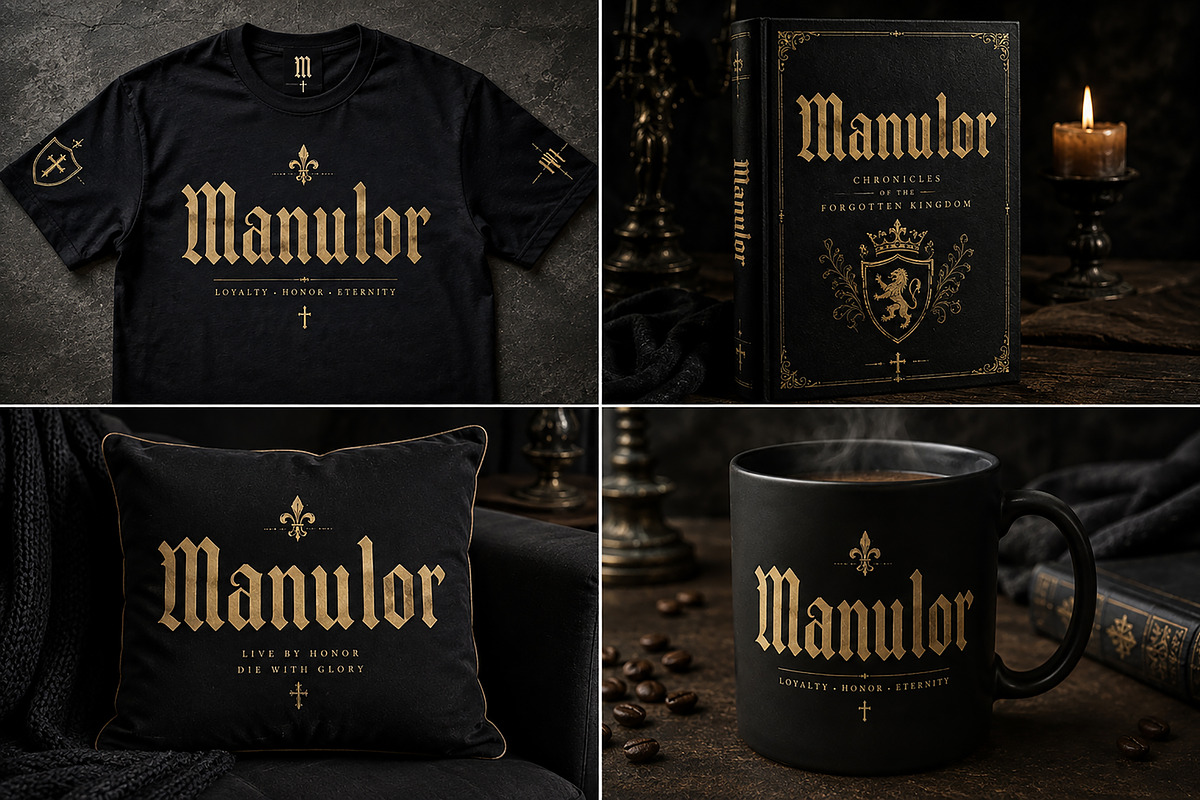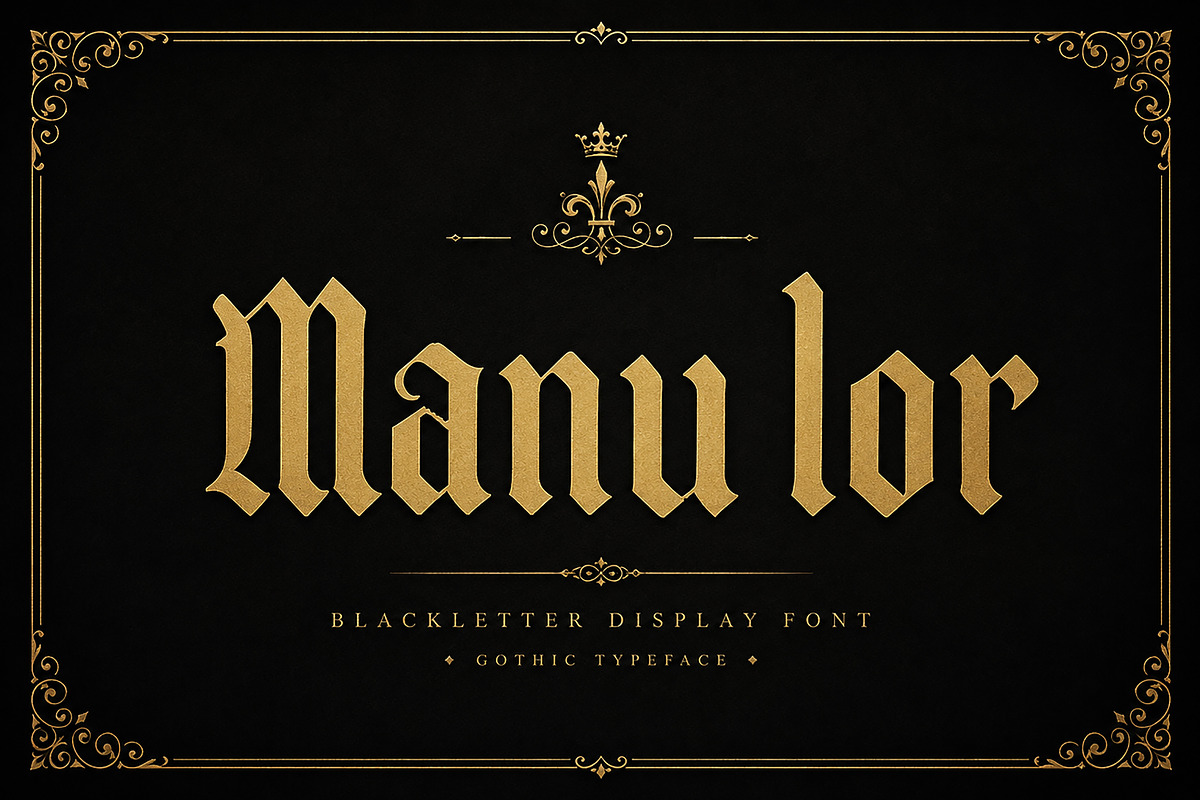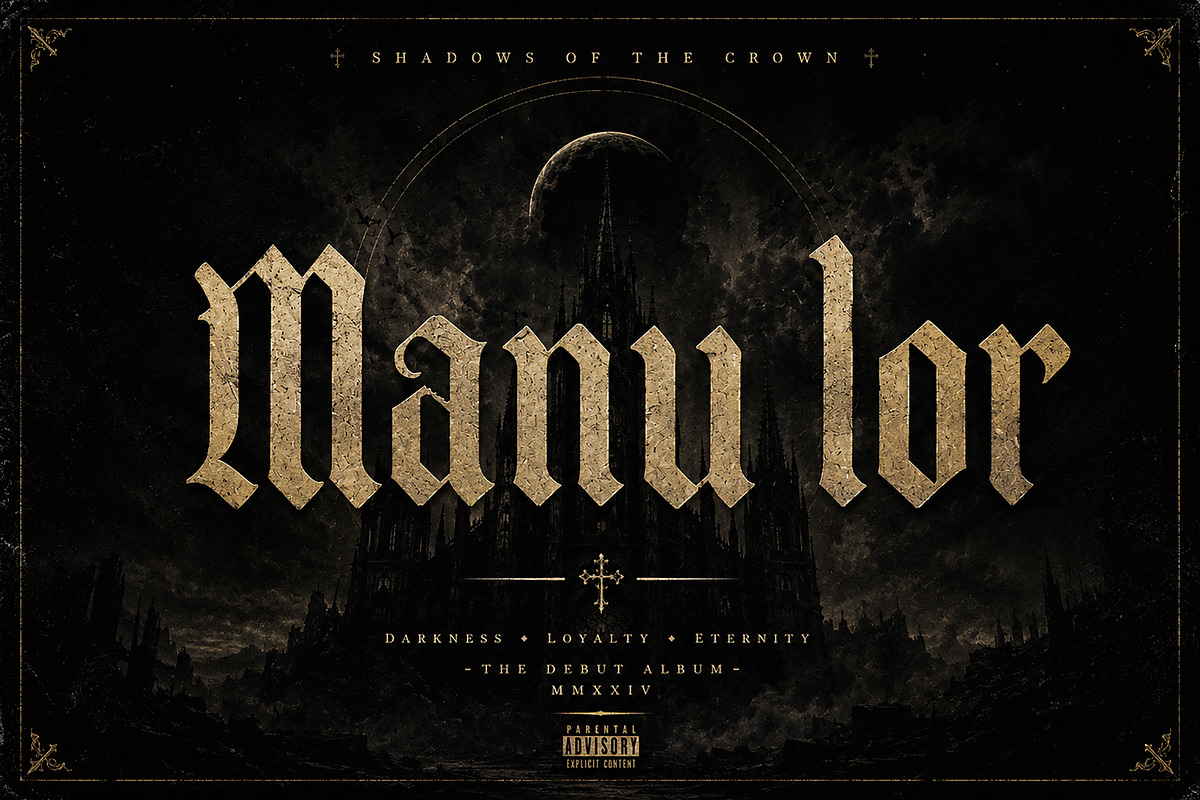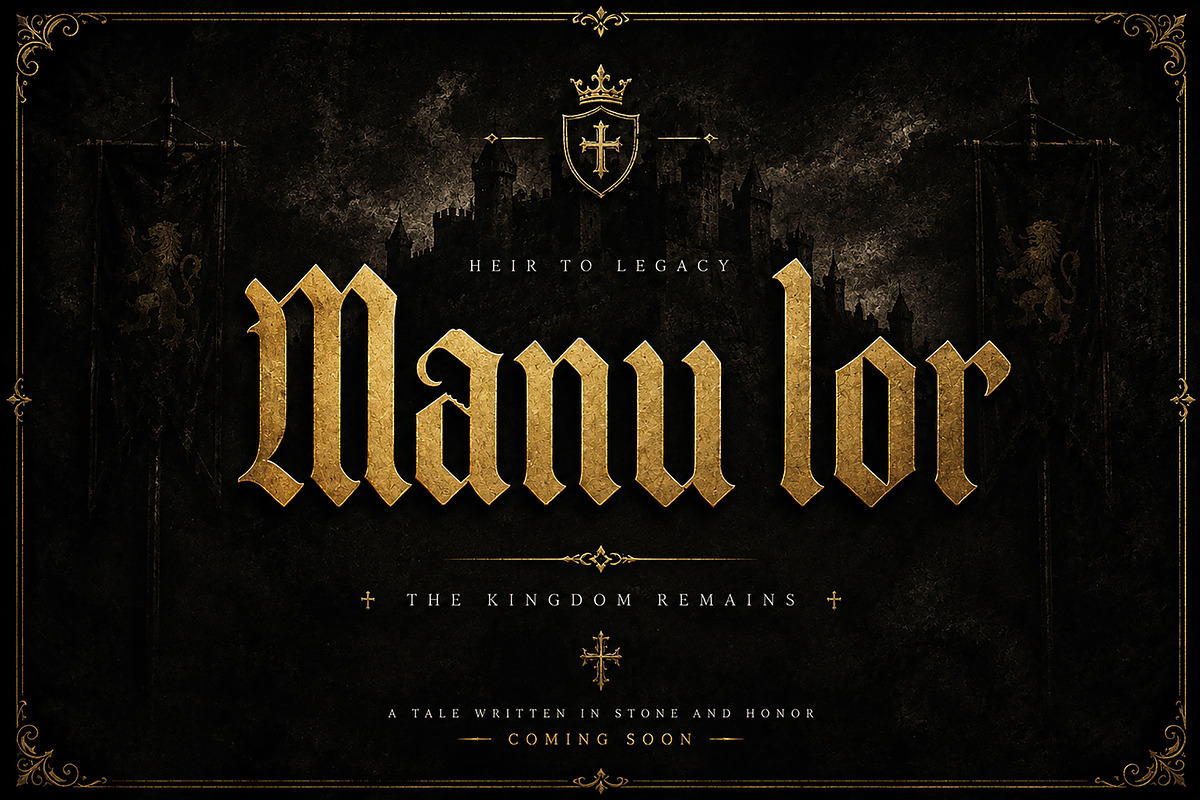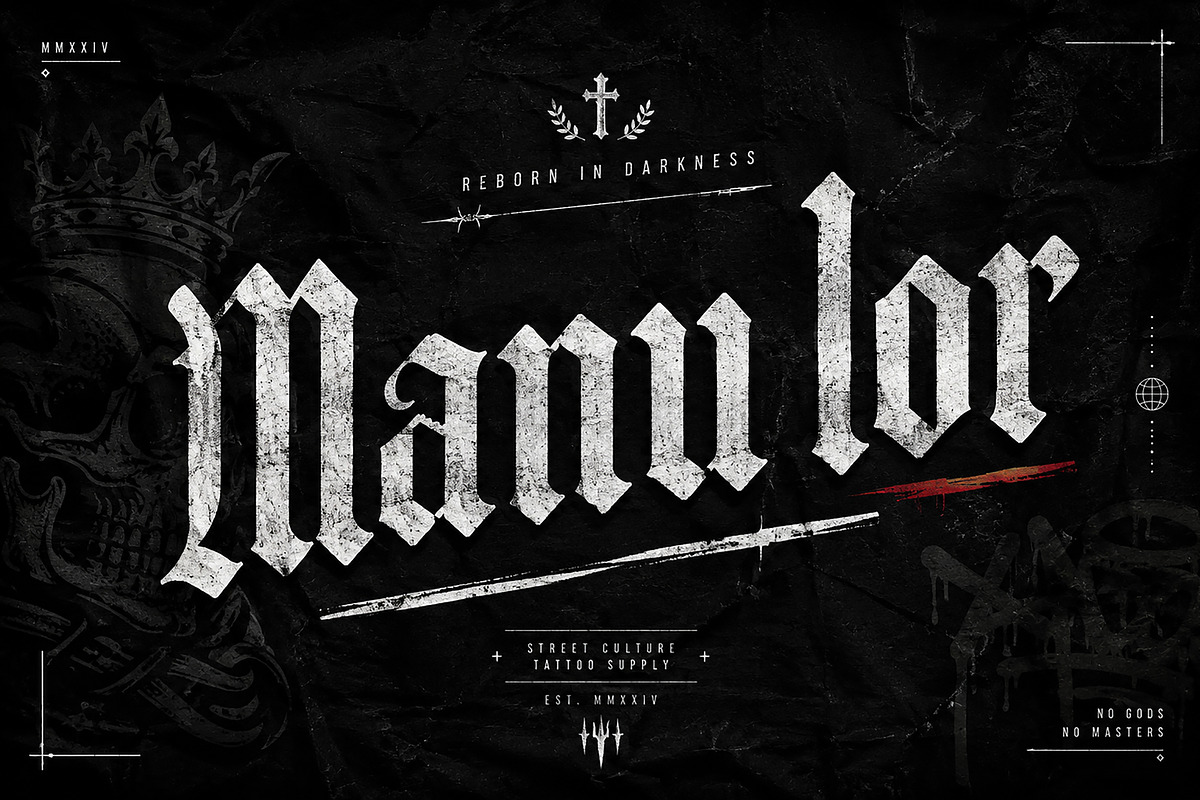
Manulor
Manulor — Blackletter Gothic Font
Manulor is a bold and distinctive Blackletter Gothic display font inspired by medieval typography, dark heritage, and timeless European lettering. Its sharp, dramatic forms and strong vertical structure give designs an instantly powerful and sophisticated character.
Designed to make a statement, Manulor works especially well for logos, branding, apparel, tattoo designs, album covers, posters, book covers, packaging, labels, merchandise, and other high-impact display projects.
Whether you're creating a dark fashion identity, medieval-inspired artwork, gothic merchandise, or a striking brand logo, Manulor brings an authentic and commanding Blackletter aesthetic to your designs.
Gothic & Blackletter Logos
Luxury Branding
Streetwear & Apparel
T-Shirt Designs
Tattoo & Tattoo Branding
Album & Music Covers
Band Merchandise
Posters & Flyers
Book & Novel Covers
Medieval & Fantasy Designs
Packaging & Product Labels
Badges & Emblems
Merchandise & Print Design
Bold Blackletter / Gothic style
Strong and dramatic display appearance
Excellent for large headlines and wordmarks
Suitable for print and digital design
Ideal for dark, vintage, medieval, and luxury aesthetics